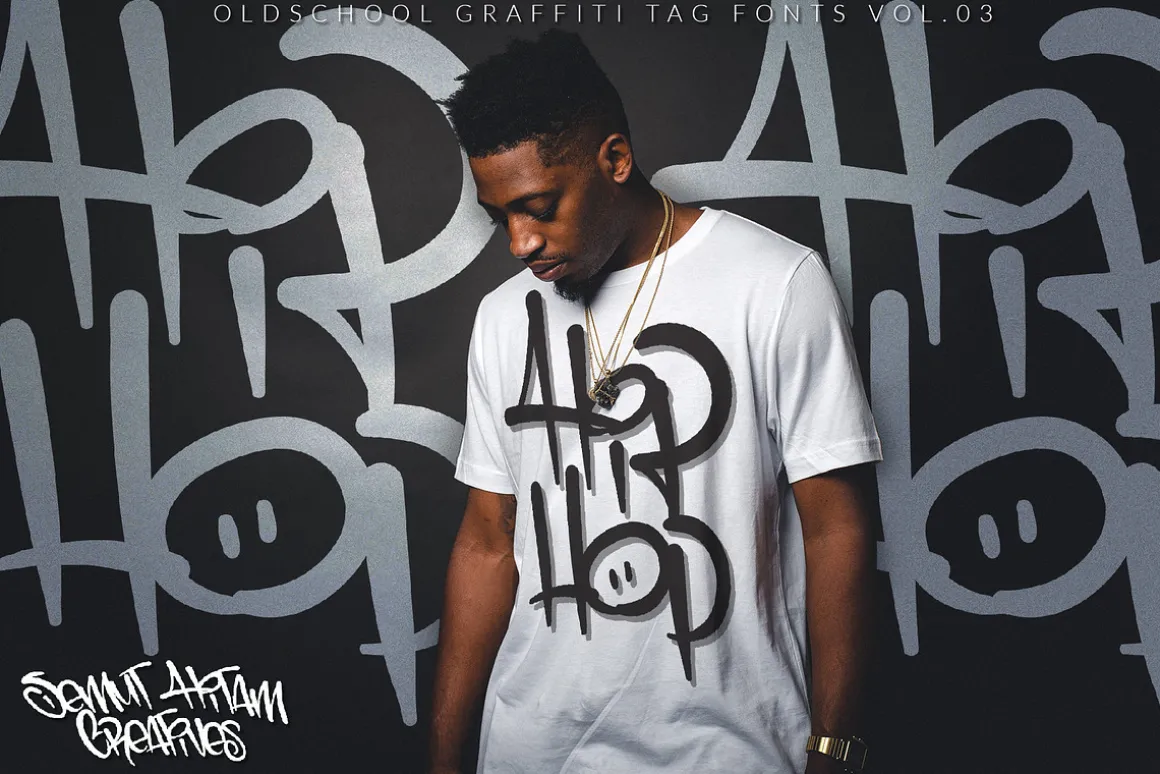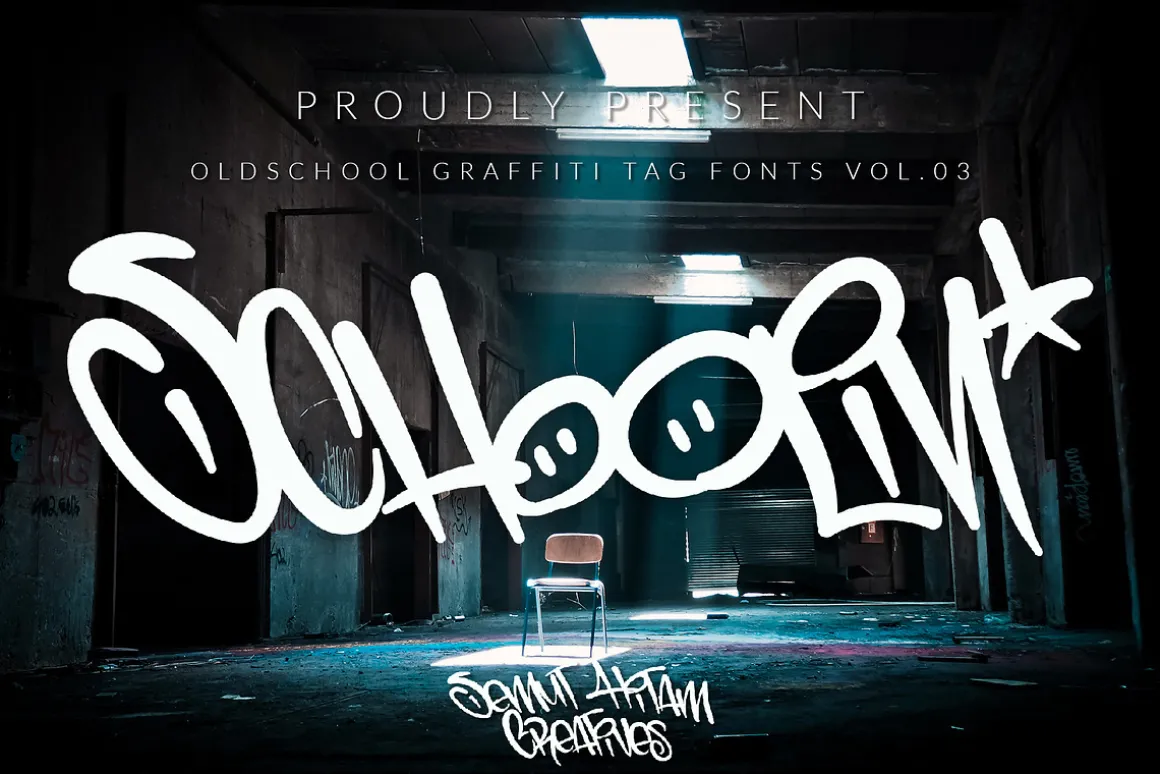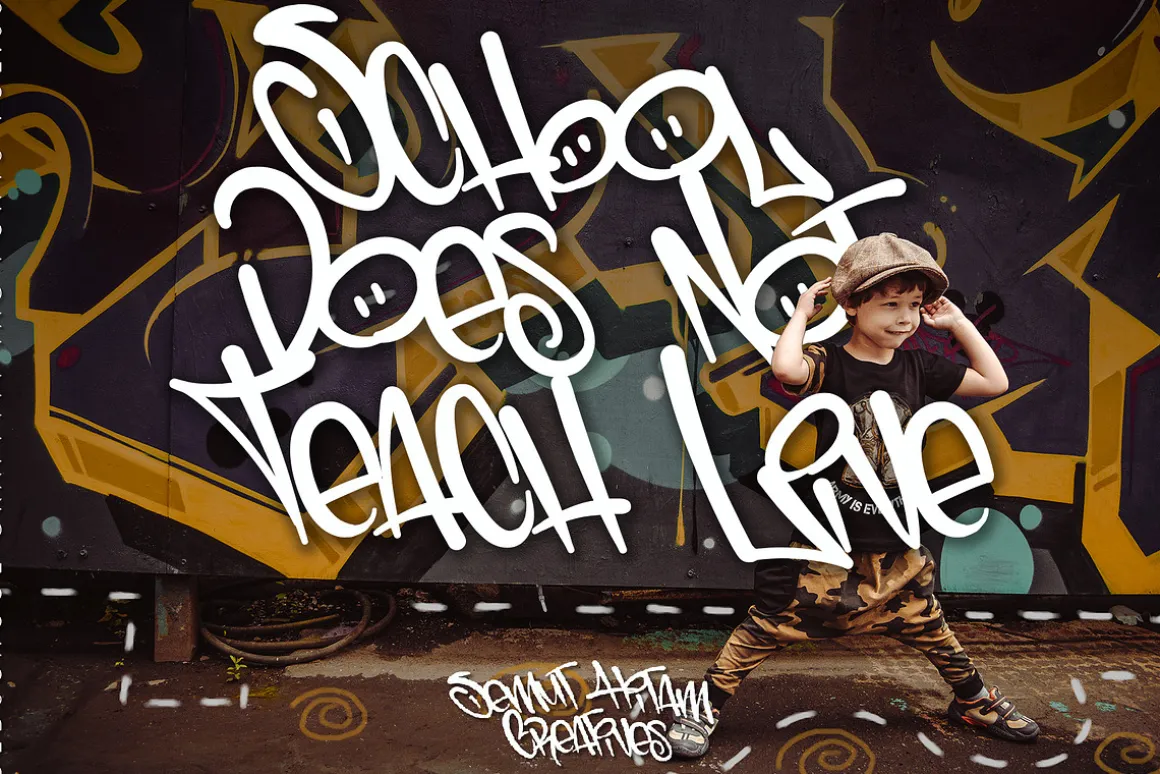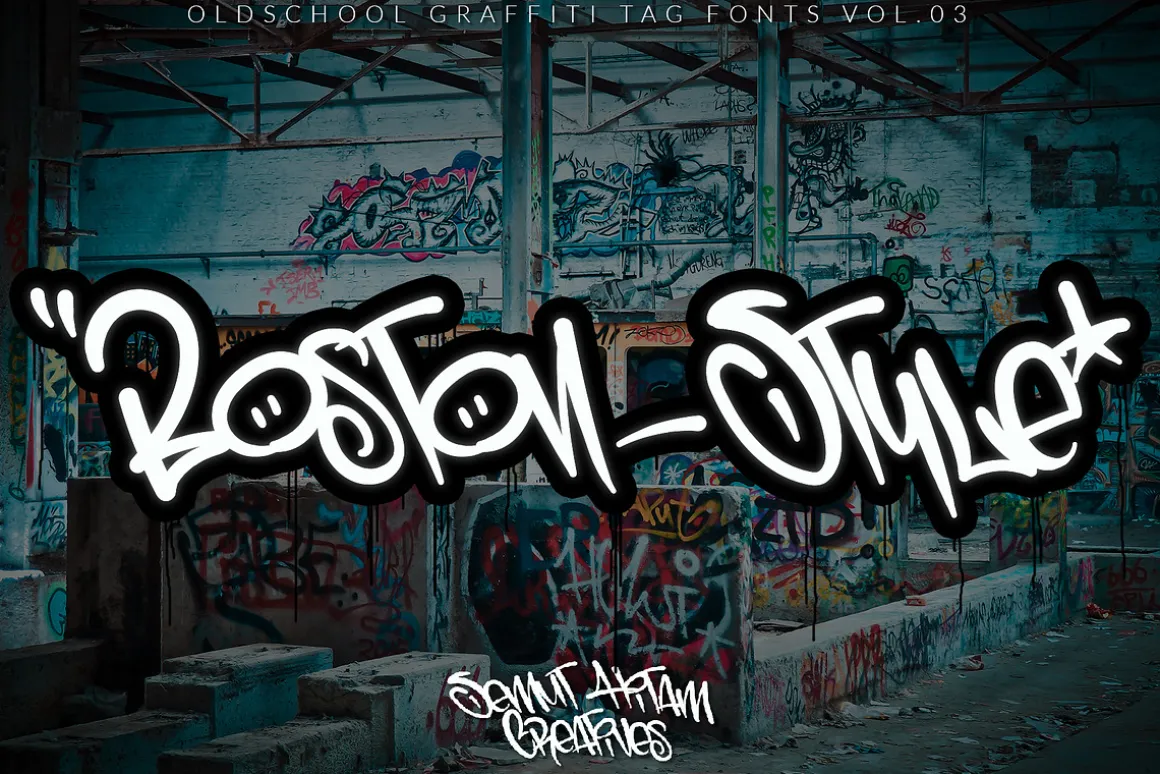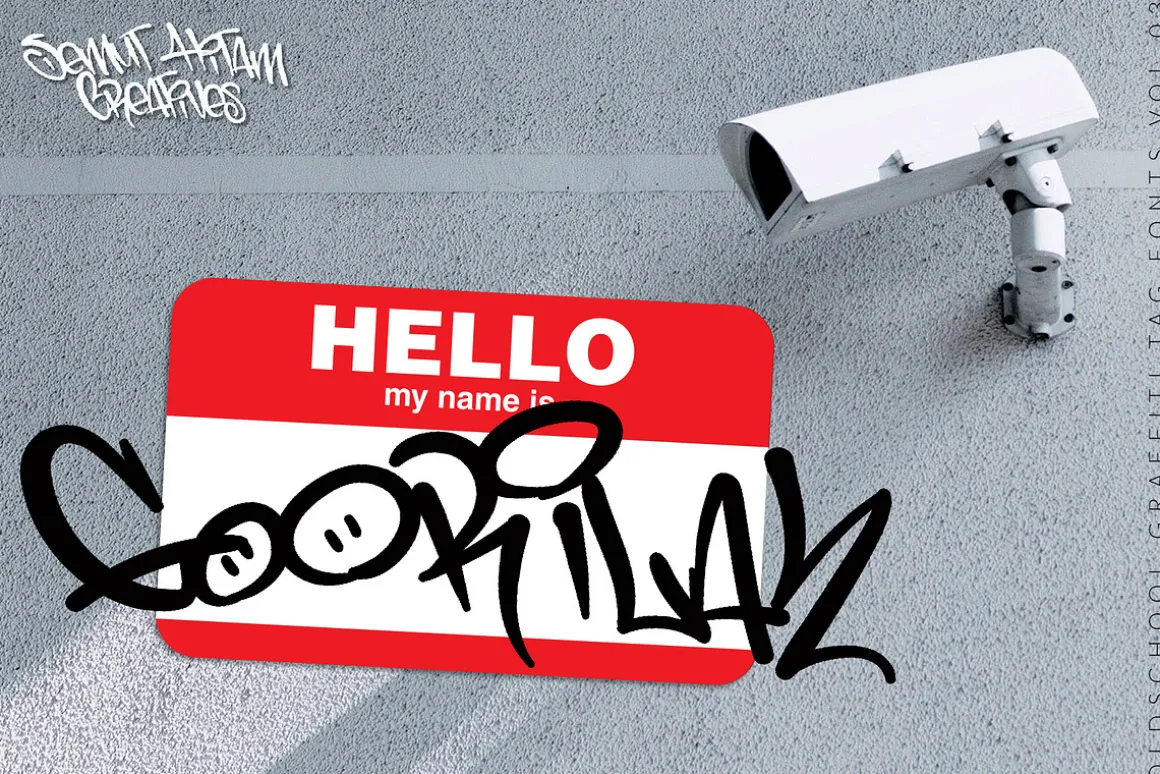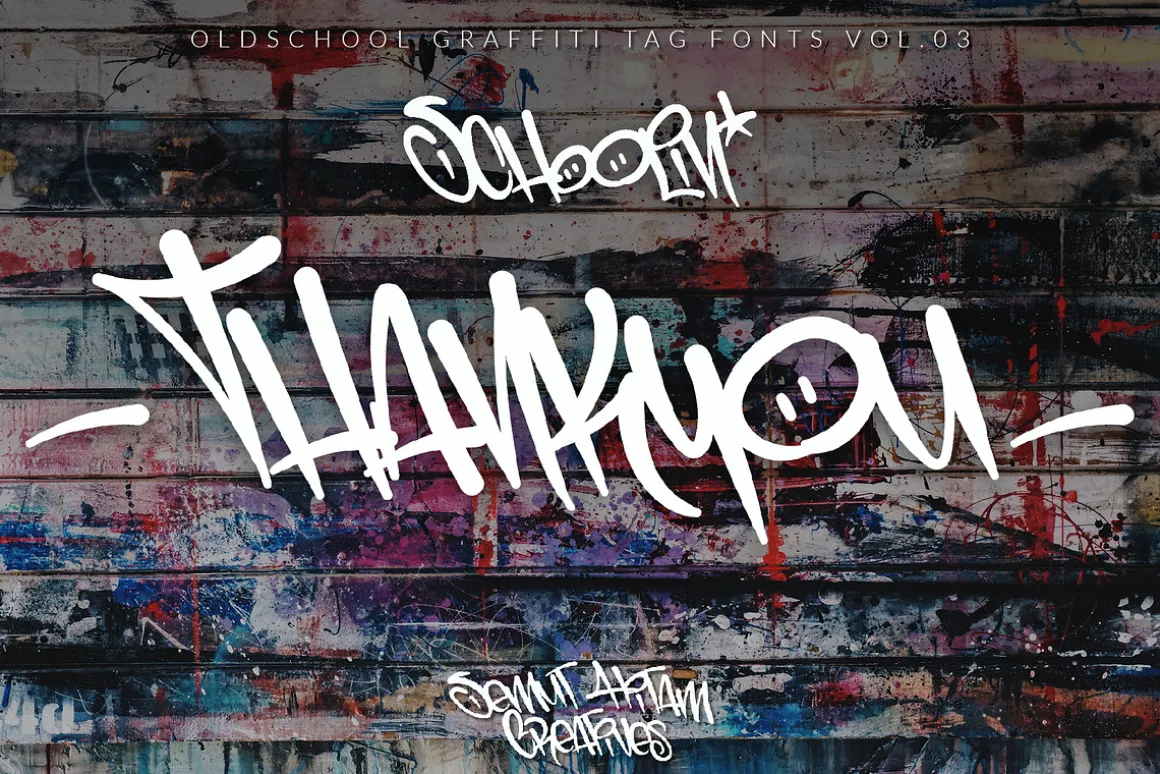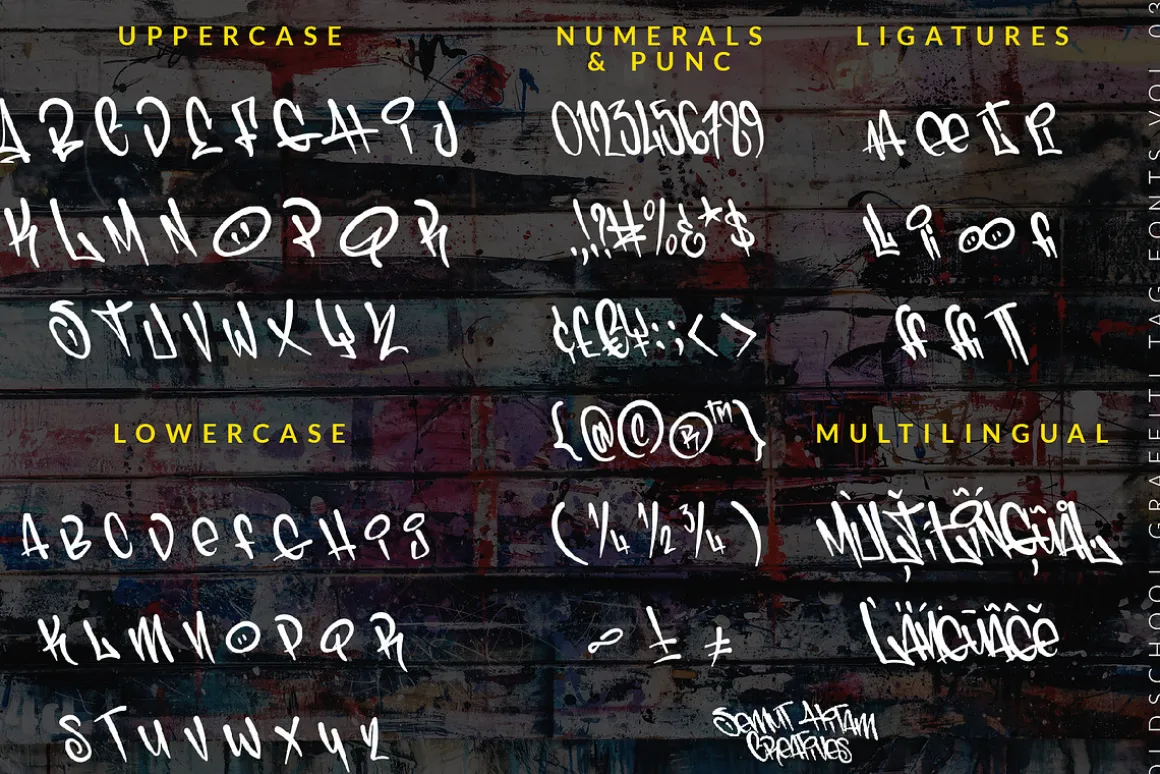
Schoolin is an another Oldschool Graffiti Tag Fonts, Back to Basic!!! For those of you who want a more funky design look. In the graffiti world, usually you’ll use the initials as a sign of your masterpiece, or you use it for a graffiti battle. Schoolin present to you, Inspired from old style graffiti tagging. Schoolin Includes full set of funky uppercase, lowercase letters, numbers, punctuation, multilingual language and various ligatures. To make you easily mix and match your own graffiti style tag.